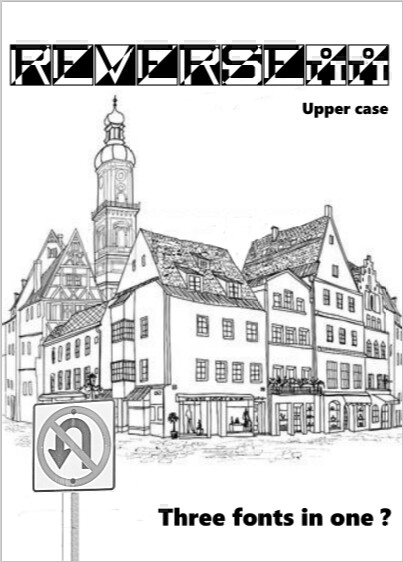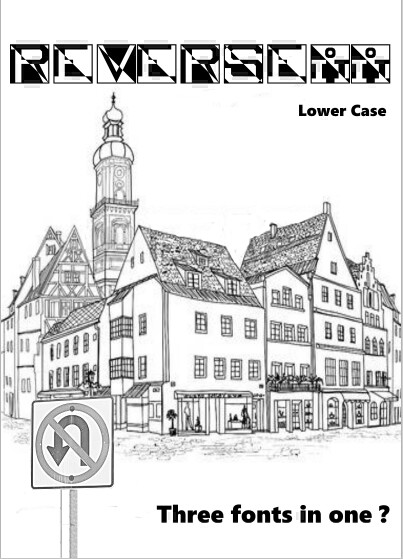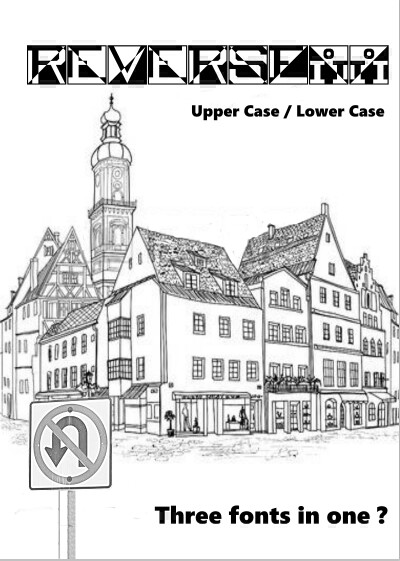
Reverseii
by wicci
All letters are upper case regardless of whether you type using upper or lower case. What changes is the background. Upper case gives a diagonal background from lower left corner to top right corner. Lower case has the diagonal background facing in the opposite direction. In effect "Reverseii" is actually three fonts in one ... upper case with diagonal background left to right .... lower case with diagonal background facing the opposite direction .... alternate between upper and lower case and the background becomes a series of half diamond points.This font is ideal for packaging headings, web site logos, posters, shop signs etc. etc.
It has been a lot of work to create this font so I hope you will all enjoy it, perhaps use it, and maybe even be inspired by it.
Quite a different type of font, a novel interpretation of  'reverse'.  Very clever, artistic and effective.
Legible even at pixel size. It probably took time and patience to do the two  different diagonal filled divisions.
There are 2 I's in I/i
digits
Interesting entry. Agreed about numbers though.
A cool sample as well!
Quite the unique font. The "i" is particularly intriguing 10/10
@ Brynda: good observation about the i. I agree with you, it's a  true creative solution. I  think the font's name may be linked with it.
Brynda. You like the 2xi but didn't tell the designer! You're surprised by 2xi share1 dot?Impressed by the stark beauty?Envious of artistic vision?You can do it:much drawing your ideas on paper+patience to build needed bricks...